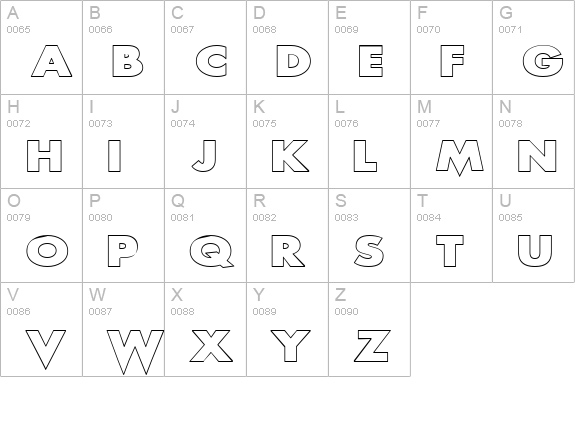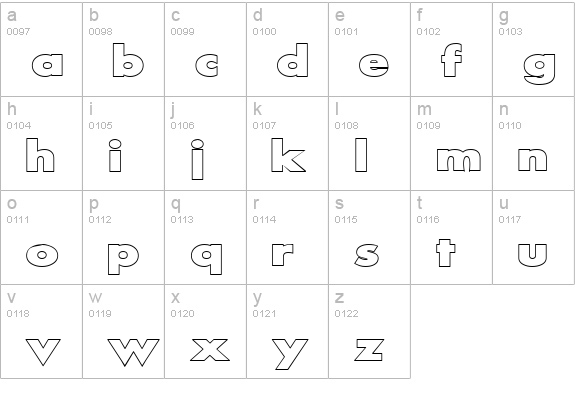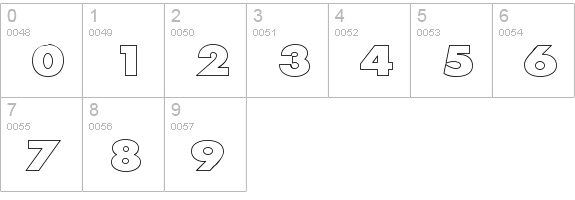
Scream outlined font is a bold and eye-catching typeface that is sure to make a statement. With its sharp edges and dynamic lines, this font adds a touch of edginess and excitement to any project. The outlined design adds a unique texture and depth, making it perfect for headlines, logos, posters, and more. But what makes Scream outlined font even better? It's absolutely free! You can easily download this font at FontsMarket.com without any cost. This means you can use it in both personal and commercial projects without worrying about breaking the bank. Whether you're a graphic designer looking to add a bit of flair to your designs or a business owner searching for a font that will grab attention, Scream outlined font is the ideal choice. It commands attention and stands out from the crowd, making your message impossible to ignore. So why wait? Head over to FontsMarket.com and download Scream outlined font for free today. Unleash your creativity and let this bold and striking typeface take your designs to new heights.